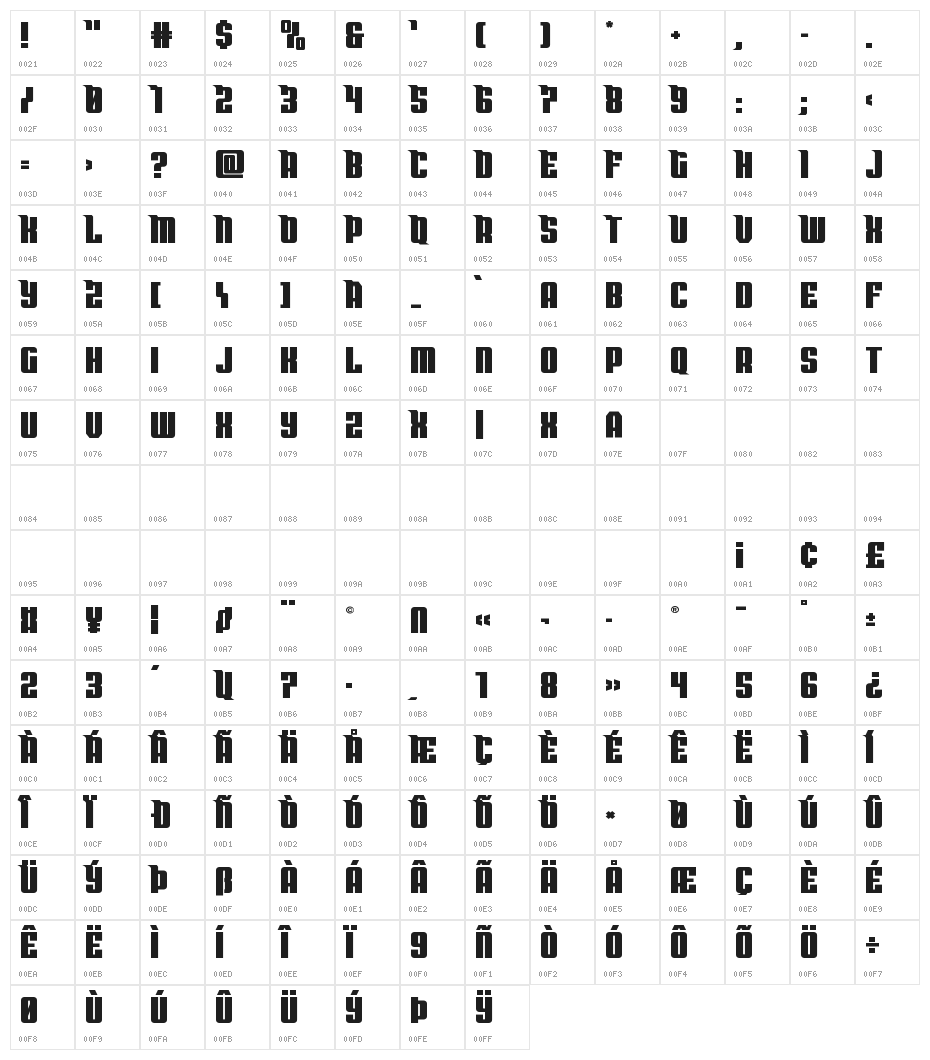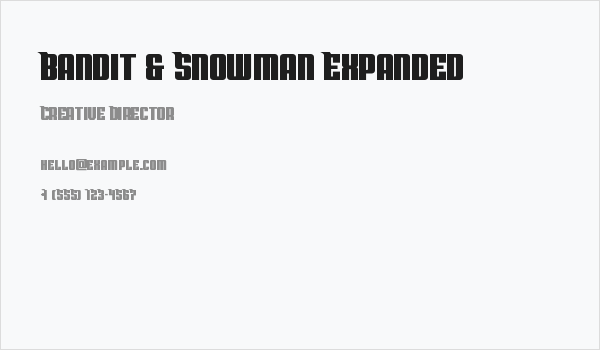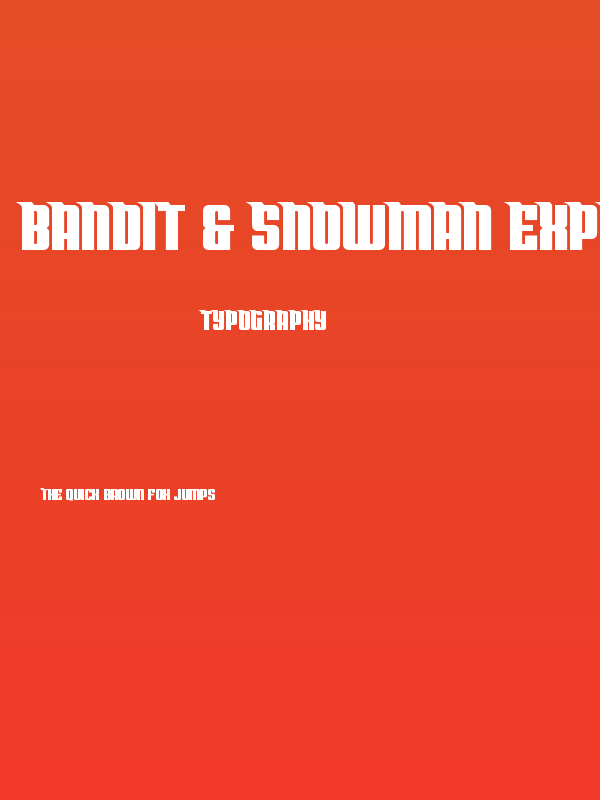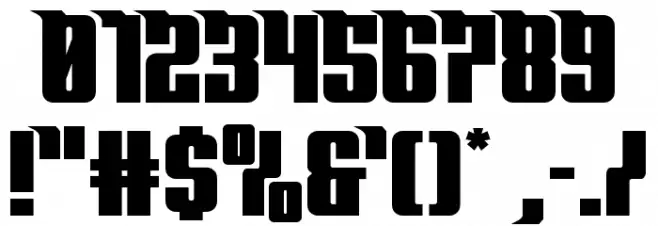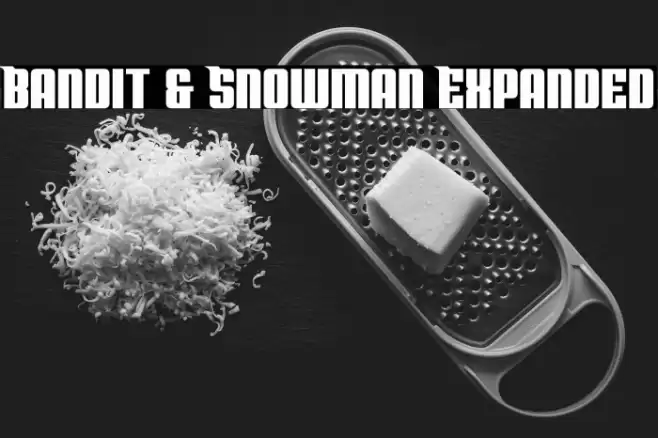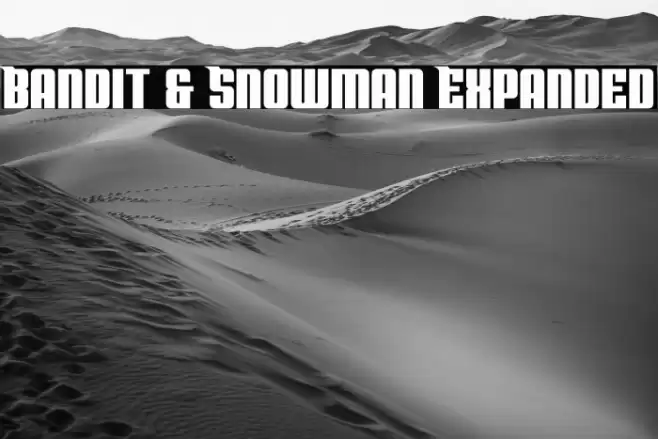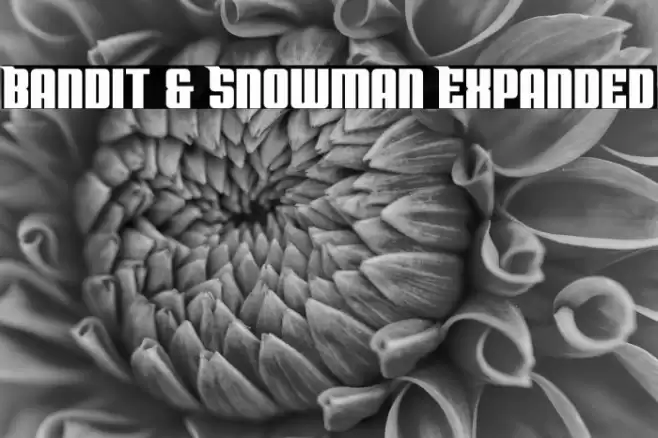
Bandit & Snowman Expanded Font
Bandit & Snowman Expanded Description
This font features a bold and commanding presence with its thick, block-like characters. The design is highly geometric, with sharp edges and a uniform stroke width that gives it a strong, impactful look. The uppercase and lowercase letters maintain a consistent style, emphasizing a sense of stability and strength. The numerals and special characters follow the same robust design, ensuring a cohesive appearance across all text elements. This font's expanded width allows for excellent readability, making it suitable for attention-grabbing headlines and titles.
| Proposed Projects | Ideal for posters, signage, branding, and any project requiring a bold, impactful typeface. |